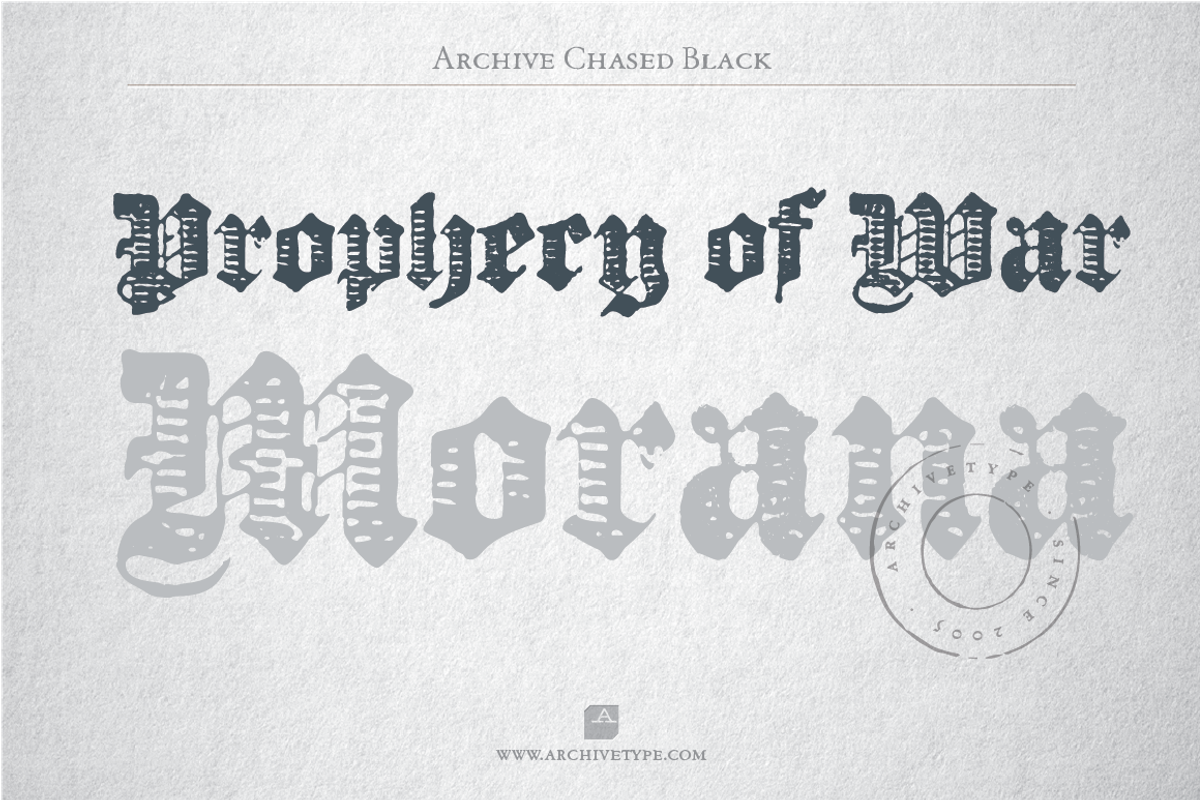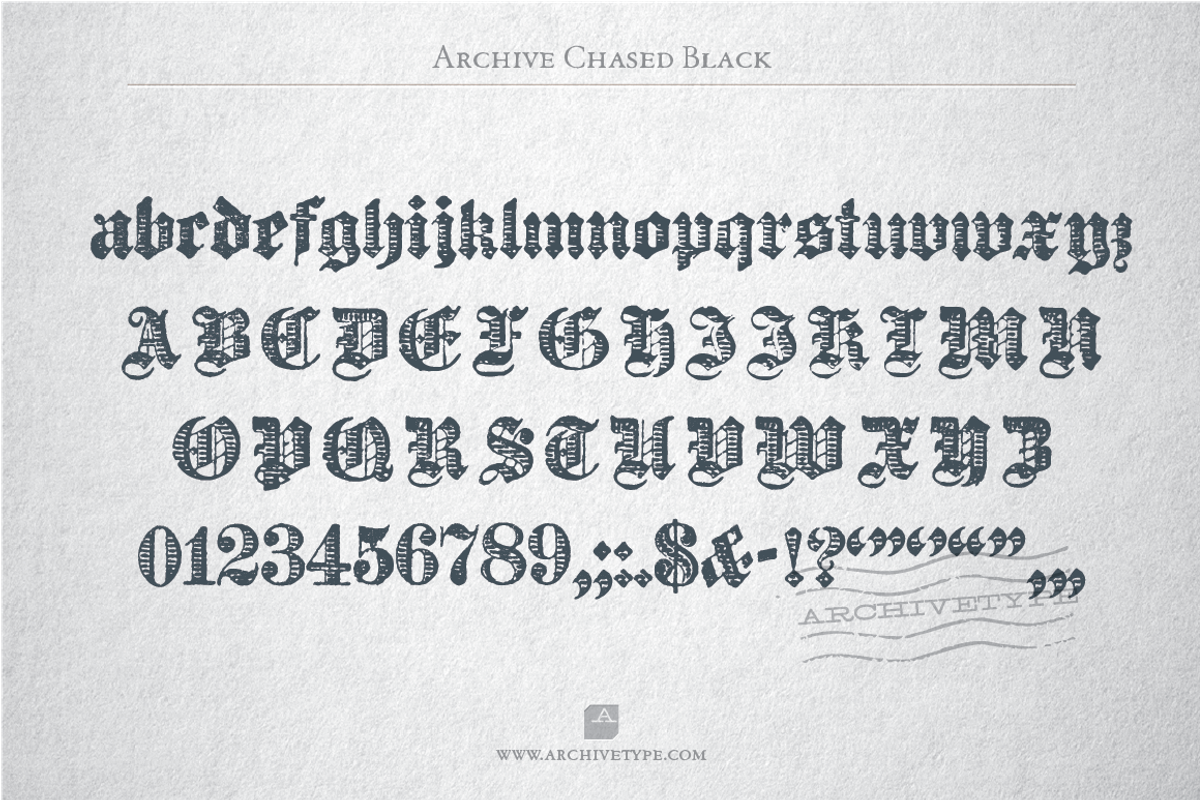
Archive Chased Black
Archive Chased Black by Archive Type Fonts is a font selected for branding, posters, packaging, typography.
- In order to preserve the original feel of typefaces, no additional characters were added to originals, therefore, most of the fonts consist
- Upper case letters, lower case letters, numerals and basic punctuation.
Why Archive Chased Black is worth a look
Archive Chased Black by Archive Type Fonts fits naturally into Branding, posters, packaging, typography.